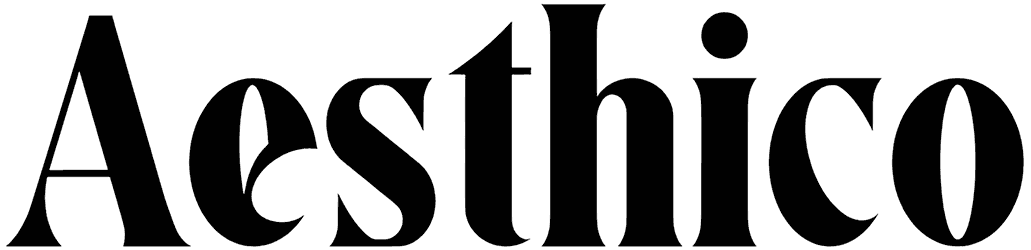
Aesthico Font
Your romance novel book cover is going to be well-designed if you use an elegant classic letterform like this serif font. The Aesthico font, with its unique and noble face, could throw a charming vibe into your intended design. Try it for your next design or just add it to your personal library of design tools to use it for your future projects.